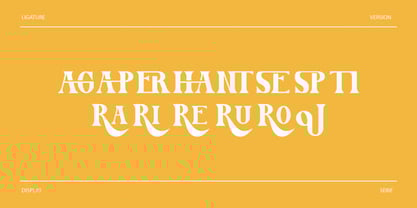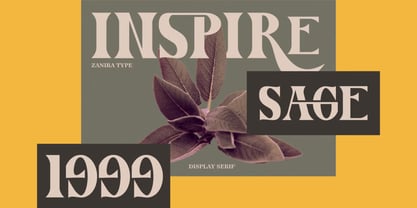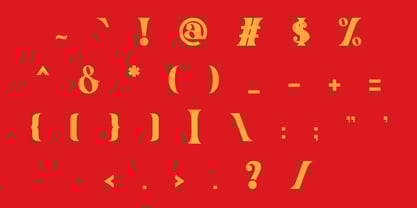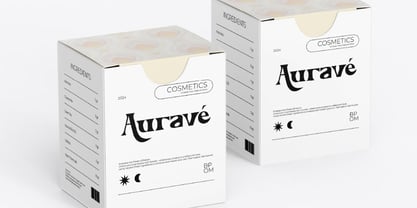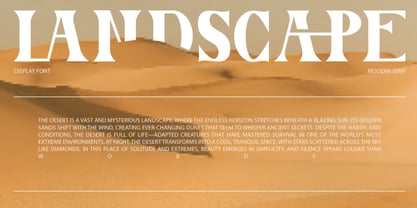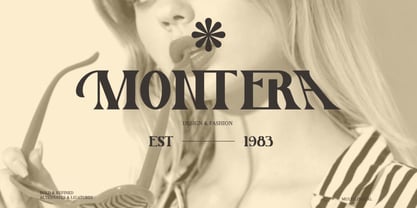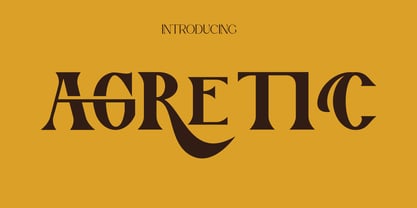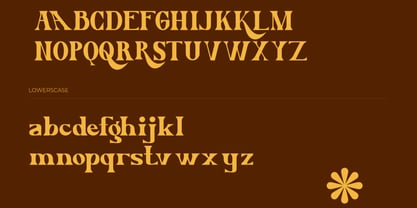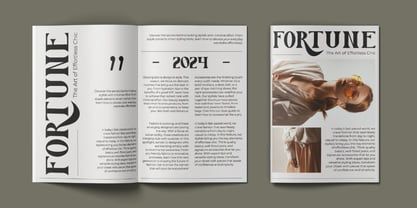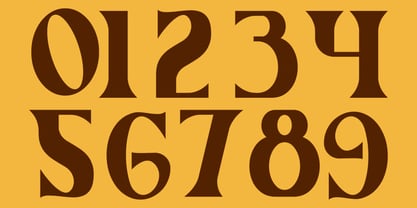
Agretic
by Hasnat Studio
The Agretic Font Family was designed by Hasnat Khan and published by Hasnat Studio. Agretic contains 1 styles. More about this family
Agretic is a stylish, distinctive serif font that beautifully blends timeless elegance with a subtle retro influence. Designed with sharp, well-defined serifs and a strong, confident structure, this typeface captures the charm of classic typography while infusing it with a modern, refined twist. Its bold presence and balanced form make it perfect for designers seeking a typeface that feels both nostalgic and contemporary. With its clean craftsmanship and eye-catching style, Agretic brings character and sophistication to every design—ideal for branding, editorial layouts, logos, packaging, posters, print materials, social media graphics, and high-end visual projects. ✿ Key Features: - Timeless Serif Design: Classic serif forms enhanced with modern detailing. - Retro-Modern Aesthetic: A perfect blend of vintage charm and contemporary style. - Sharp & Defined Letterforms: Bold, confident shapes for strong visual impact. - Uppercase & Lowercase: Complete set of characters for versatile use. - Numbers & Punctuation: Fully equipped for professional typography needs. - Multilingual Support: Includes accented characters for global usability. - High-Quality Crafting: Clean outlines and consistent proportions for polished designs. ✿ Perfect For: - Branding & Logo Design: Create striking, memorable brand identities. - Editorial & Magazine Design: Ideal for headlines, subheadings, and refined layouts. - Posters & Print Work: Achieve bold, classic, and visually commanding designs. - Packaging & Labels: Add elegance and personality to product branding. - Social Media & Marketing: Stand out with stylish, modern-retro typography. - Creative Projects: Perfect for quotes, invitations, titles, and upscale visuals. Enjoy Agretic with ease—free future updates are included for continued compatibility and improvements. Enhance your creative work with Agretic, the elegant retro-modern serif font that delivers timeless beauty and bold visual presence.